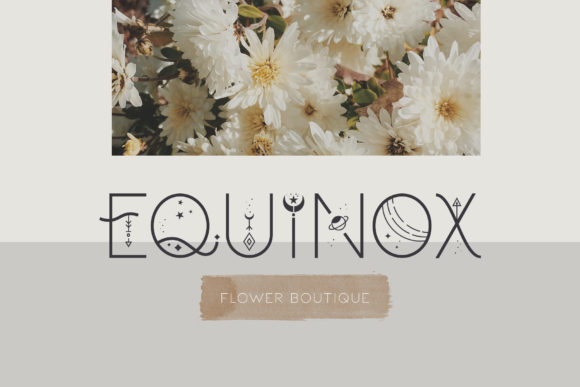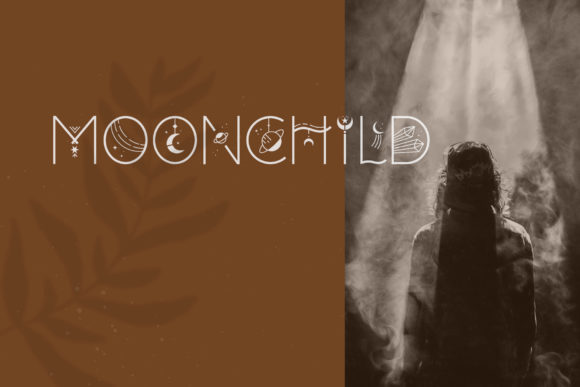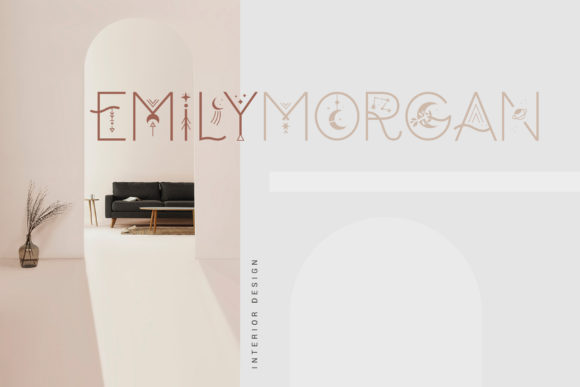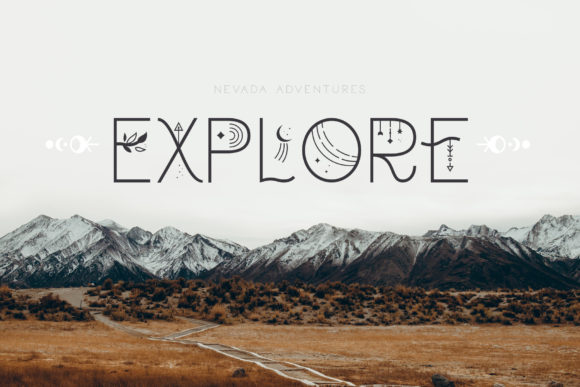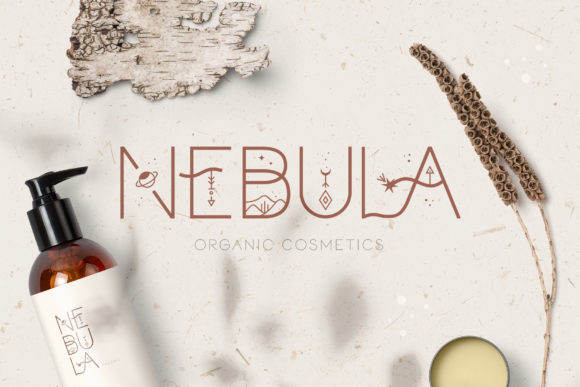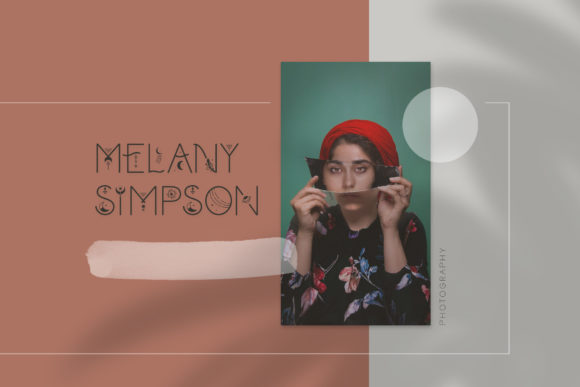
Celestial Font: Elevate Your Designs with a Touch of the Cosmos
Are you looking for a font that can add a touch of magic to your creative projects? Look no further than the Celestial Font, a splendid font family that is inspired by celestial motifs, boho styles, mystery, and astrology. This decorative, sans serif, and dingbats font is perfect for designers and crafters who want to elevate the look of any item and make it truly out of this world.
What is Celestial Font?
Celestial Font is a unique and versatile font family that is designed to capture the essence of the cosmos. With its intricate and delicate design, this font is perfect for creating a wide range of creative projects, from invitations and greeting cards to posters and social media graphics. Whether you’re a designer, crafter, or DIY enthusiast, Celestial Font is a must-have in your font collection.
Key Features of Celestial Font
So, what makes Celestial Font so special? Here are some of its key features:
- Decorative, sans serif, and dingbats: Celestial Font is a multi-style font family that includes decorative, sans serif, and dingbats fonts. This means you can use it to create a wide range of designs, from elegant and sophisticated to playful and whimsical.
- Inspired by celestial motifs: As its name suggests, Celestial Font is inspired by celestial motifs, including stars, moons, and planets. This gives it a unique and otherworldly feel that’s perfect for creating designs that are out of this world.
- Boho styles: Celestial Font is also inspired by bohemian styles, which means it’s perfect for creating designs that are eclectic, free-spirited, and artistic.
- Mystery and astrology: With its intricate and delicate design, Celestial Font is also perfect for creating designs that are mysterious and astrological. Whether you’re creating a design for a astrology website or a mystical-themed party invitation, this font has got you covered.
Uses of Celestial Font
So, what can you use Celestial Font for? The possibilities are endless! Here are some ideas to get you started:
- Invitations: Use Celestial Font to create beautiful and unique invitations for parties, weddings, and other special events.
- Greeting cards: Create stunning greeting cards for birthdays, holidays, and other occasions with Celestial Font.
- Posters: Use Celestial Font to create eye-catching posters for movies, concerts, and other events.
- Social media graphics: Elevate your social media graphics with Celestial Font and make them truly stand out.
- Crafting projects: Use Celestial Font to add a touch of magic to your crafting projects, such as scrapbooking, journaling, and card making.
Tips for Using Celestial Font
Here are some tips for using Celestial Font to get the most out of this amazing font:
- Experiment with different styles: Celestial Font comes in a range of styles, including decorative, sans serif, and dingbats. Experiment with different styles to find the one that works best for your project.
- Use it with other fonts: Celestial Font pairs well with other fonts, so don’t be afraid to use it with other fonts to create a unique and interesting design.
- Play with colors: Celestial Font looks amazing in a range of colors, from metallic and neon to pastel and bold. Experiment with different colors to find the one that works best for your project.
| Font Name | Celestial Font |
| Author | Favete Art |